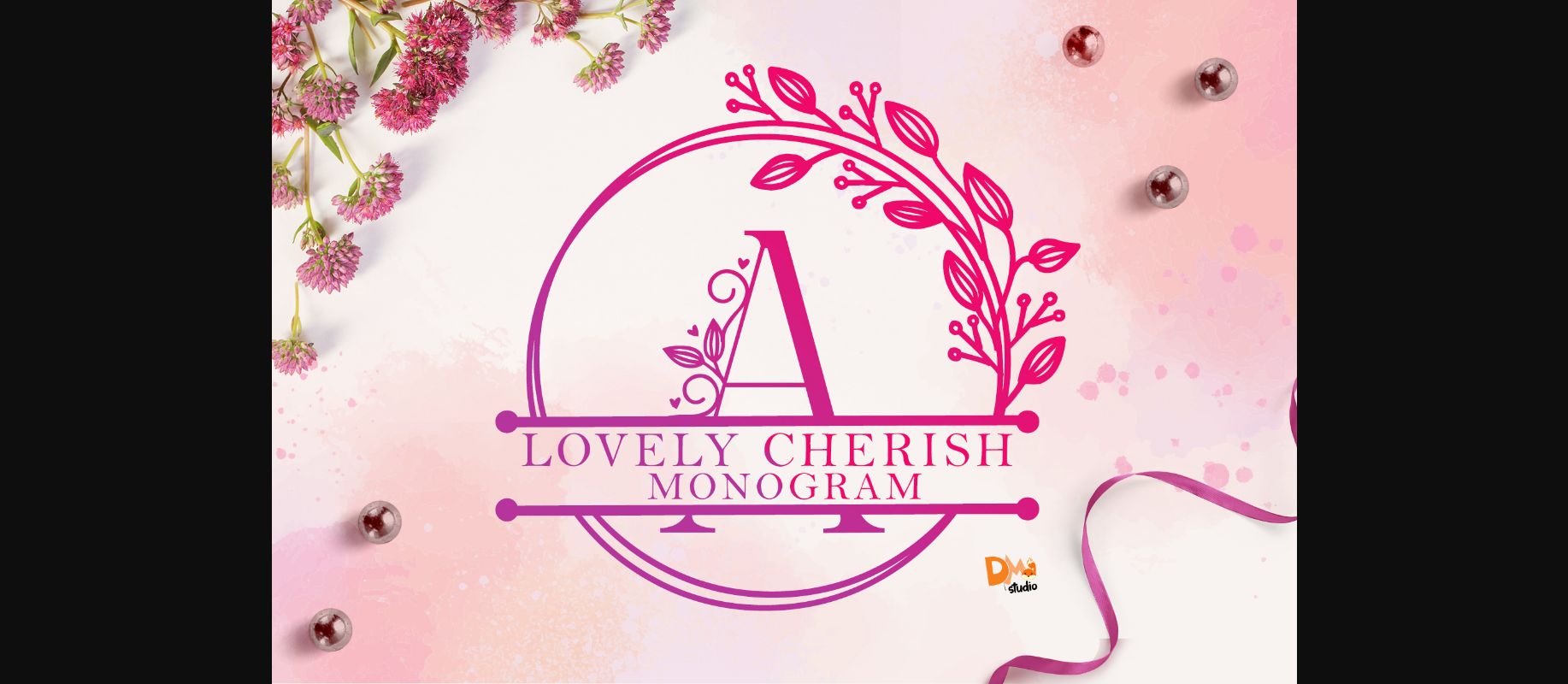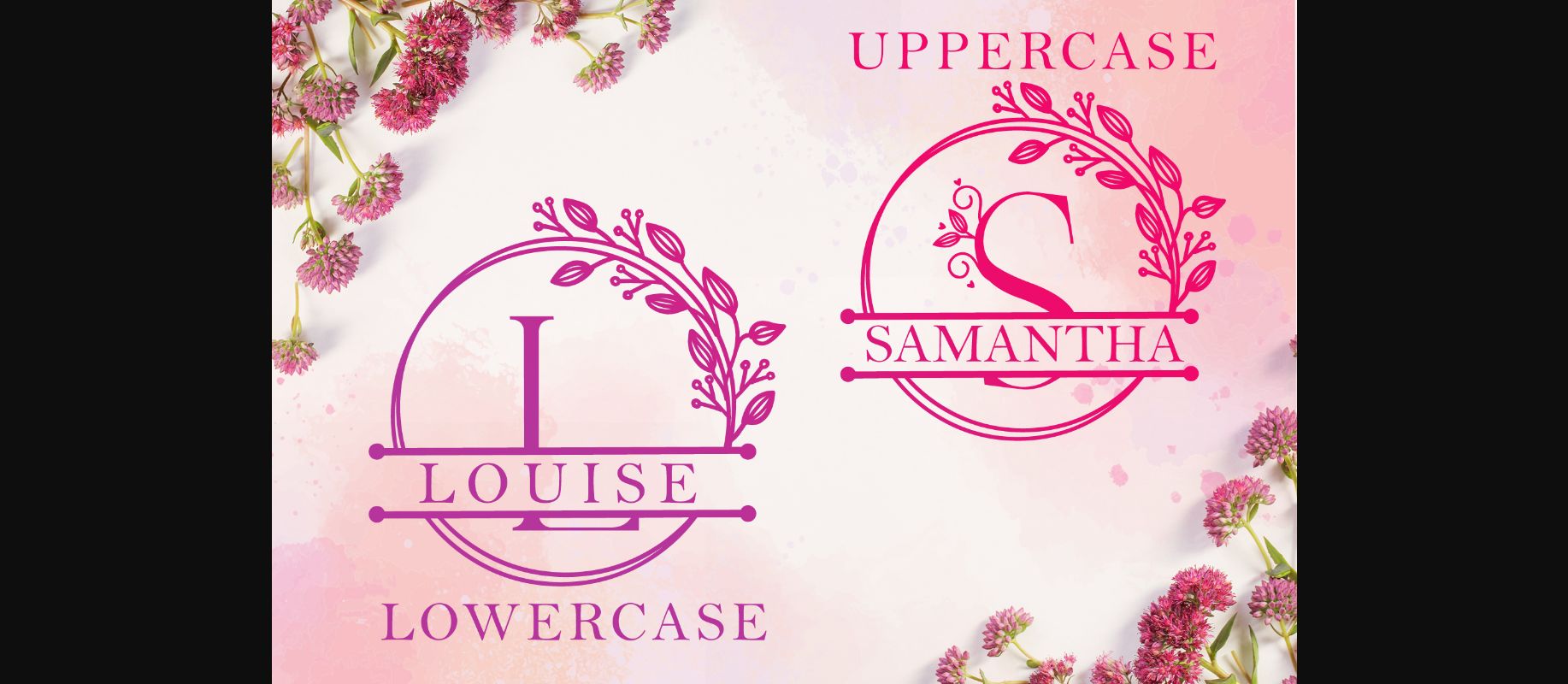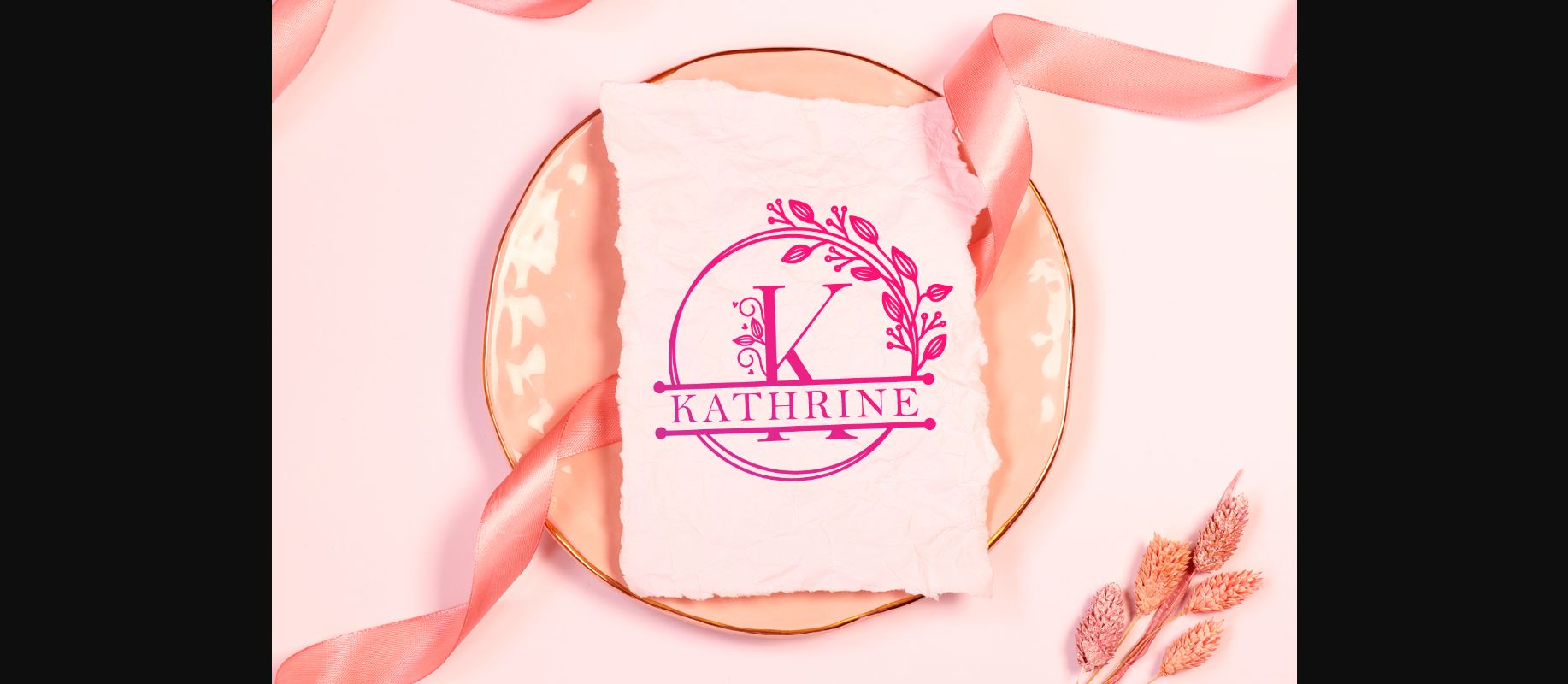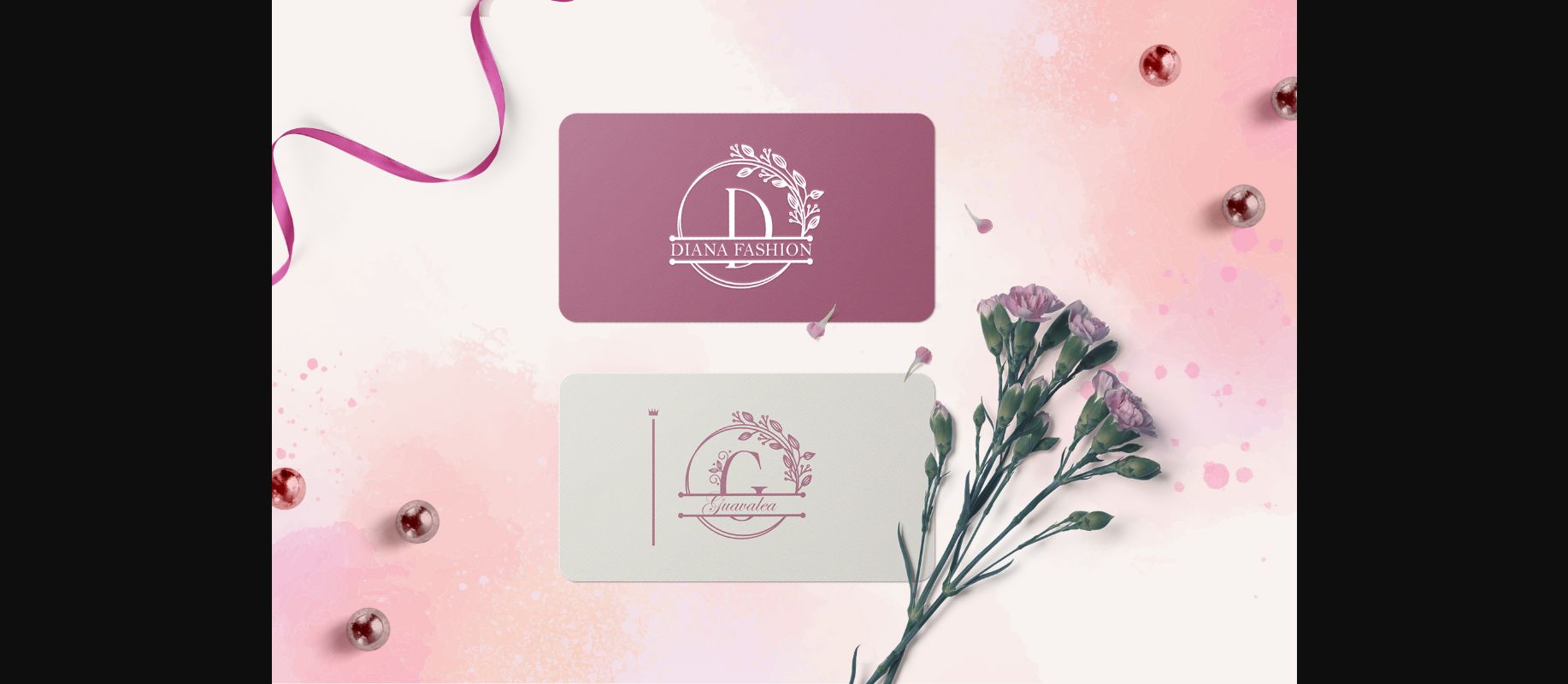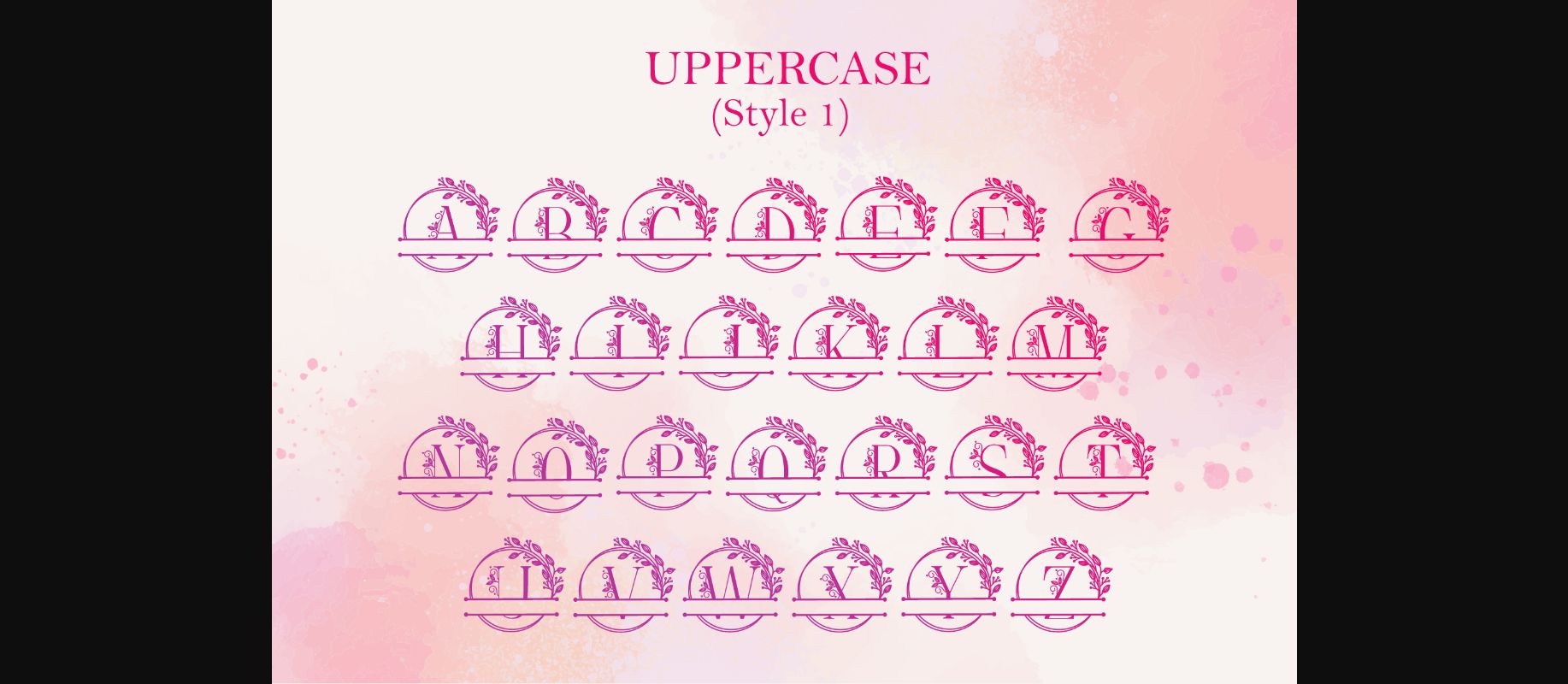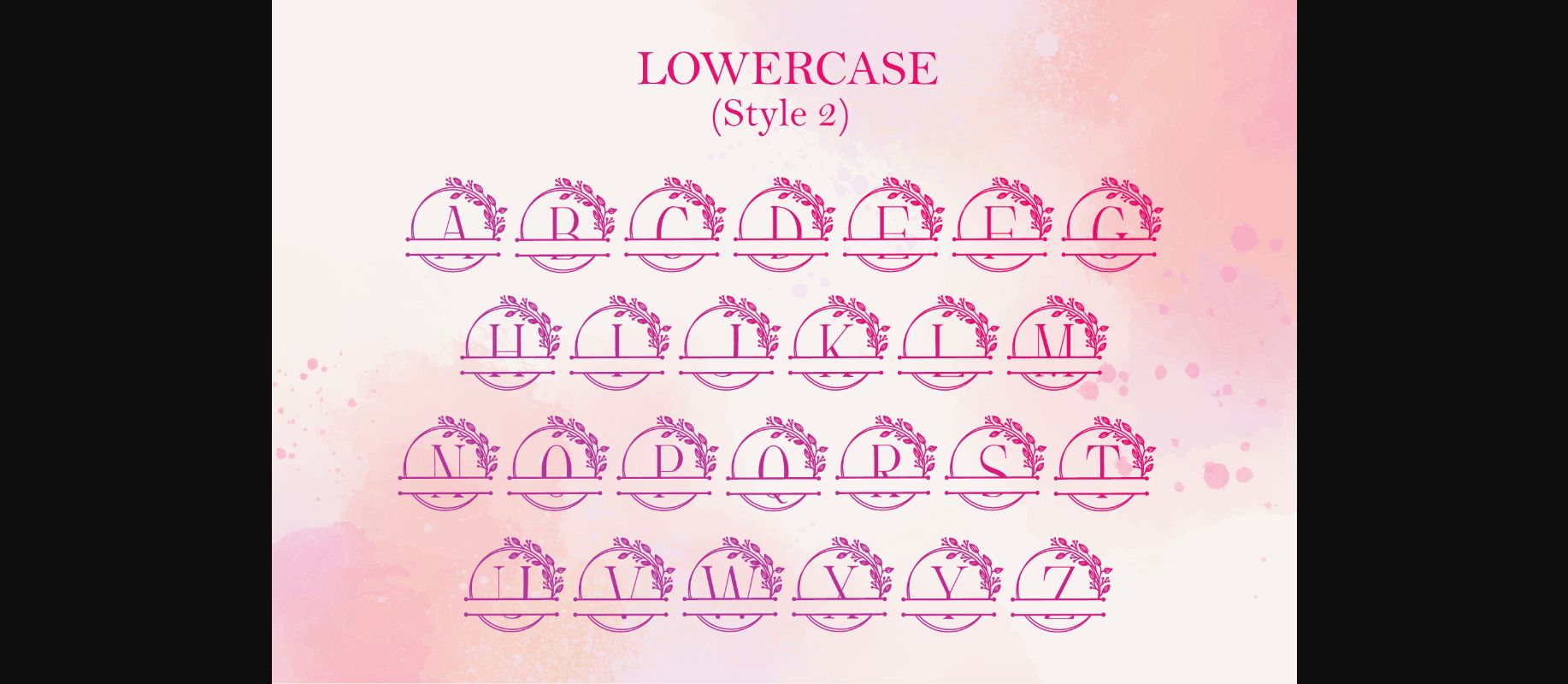
About Lovely Cherish Monogram Font
Lovely Cherish Monogram is a sweet decorative font, featuring a lovely leaf ornament. Fall in love with its authentic feel and use it to create gorgeous wedding invitations, beautiful stationary art, eye-catching social media posts, and cute greeting cards.